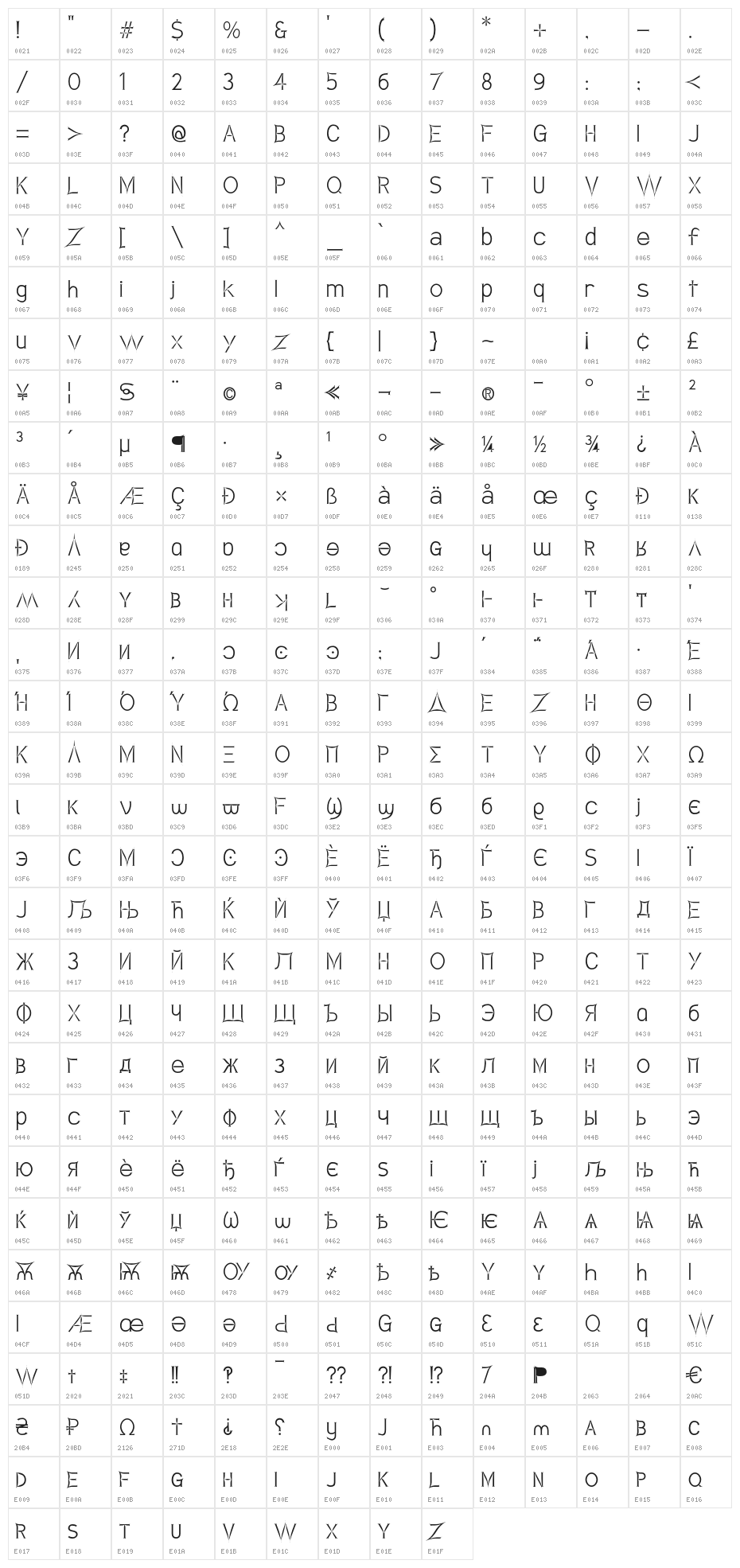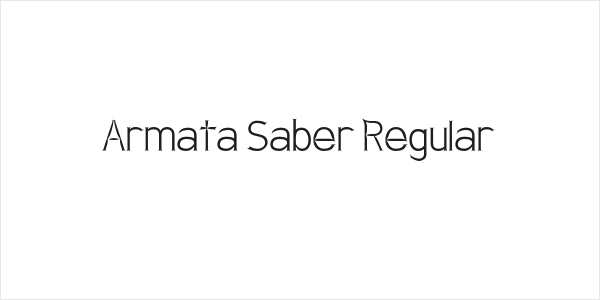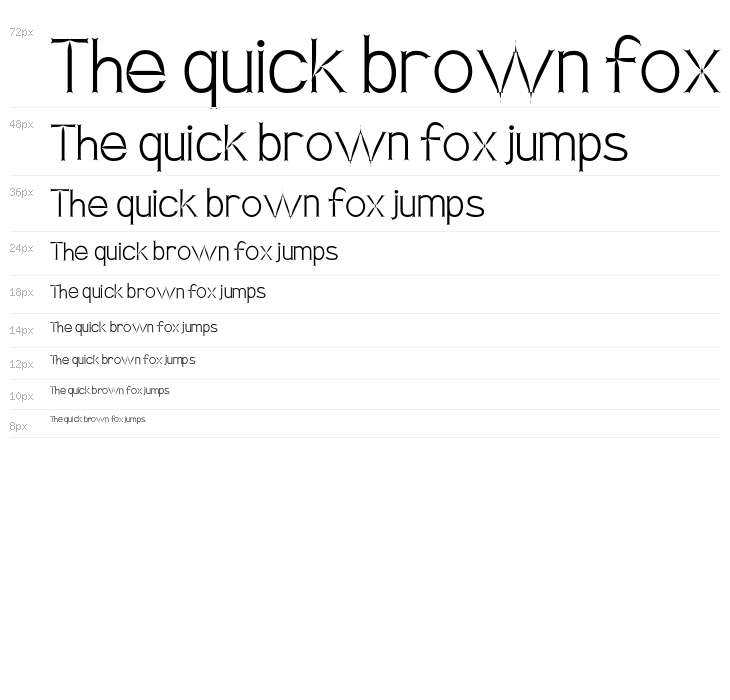
Armata Saber Regular Font
Armata Saber Regular Description
This font features a unique and striking design with sharp, angular serifs and a modern aesthetic. The uppercase letters are bold and commanding, with a futuristic edge that is emphasized by the pointed tips and geometric shapes. The lowercase letters maintain a similar style, offering a cohesive look across different text cases. Numbers and special characters are crafted with the same attention to detail, ensuring consistency throughout. The overall appearance is both distinctive and versatile, making it suitable for a variety of creative applications.
| Proposed Projects | Ideal for branding, poster design, video game graphics, and sci-fi themed projects. |